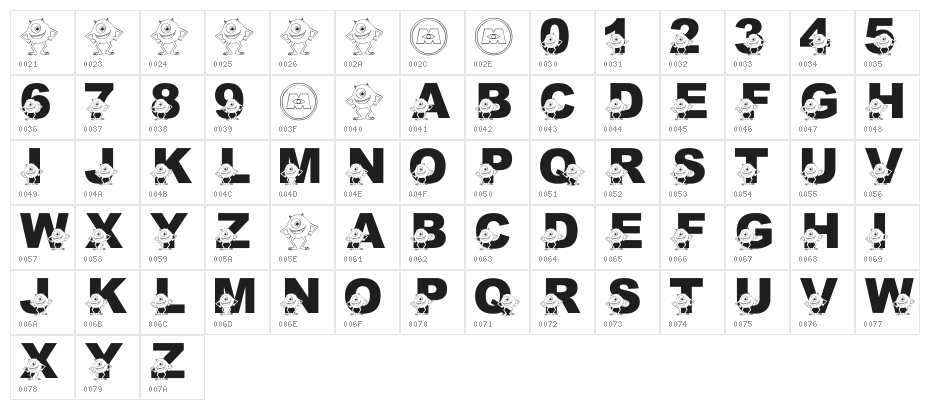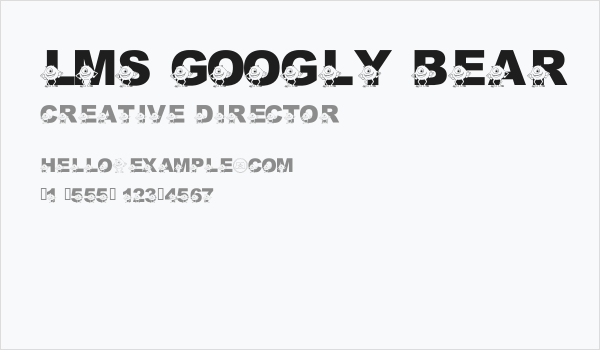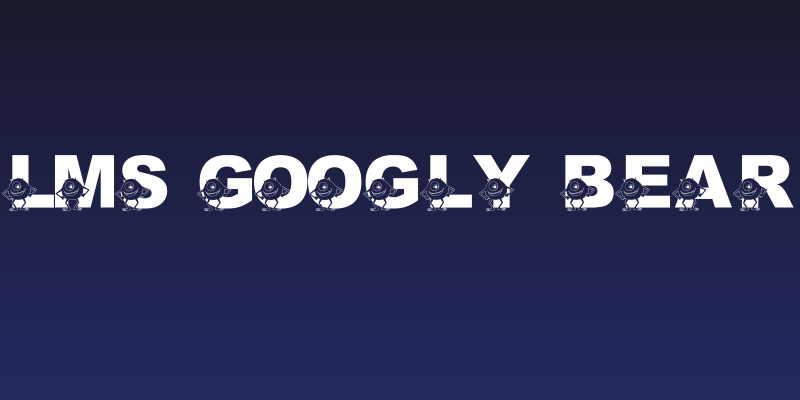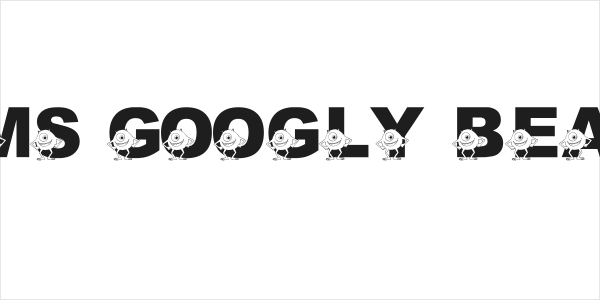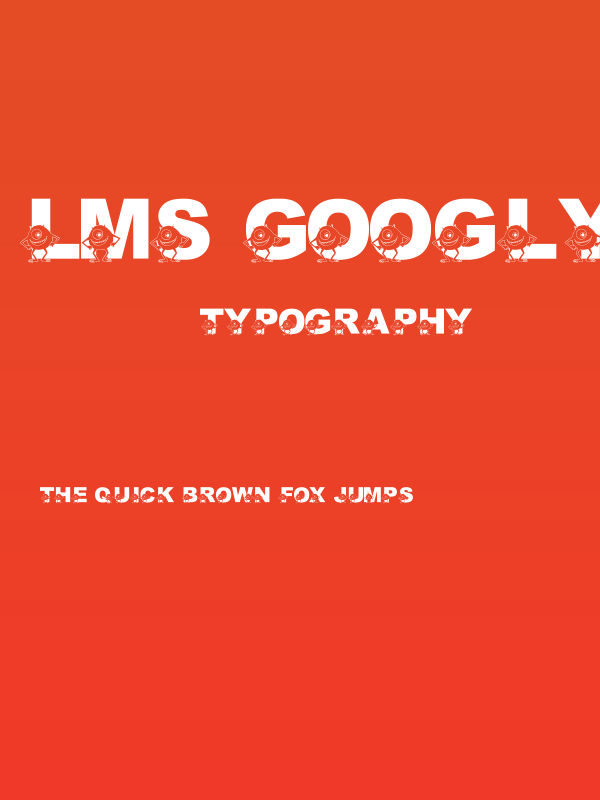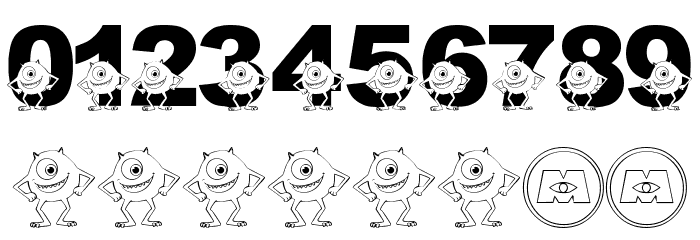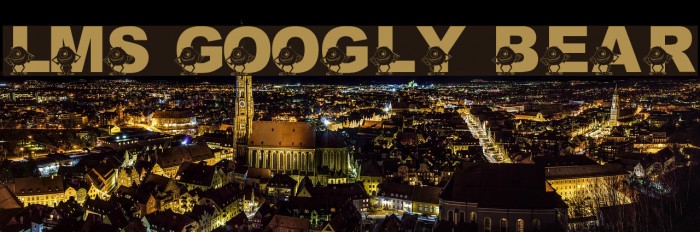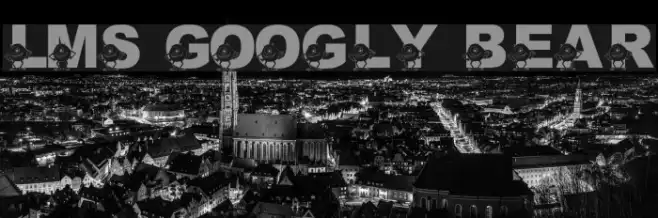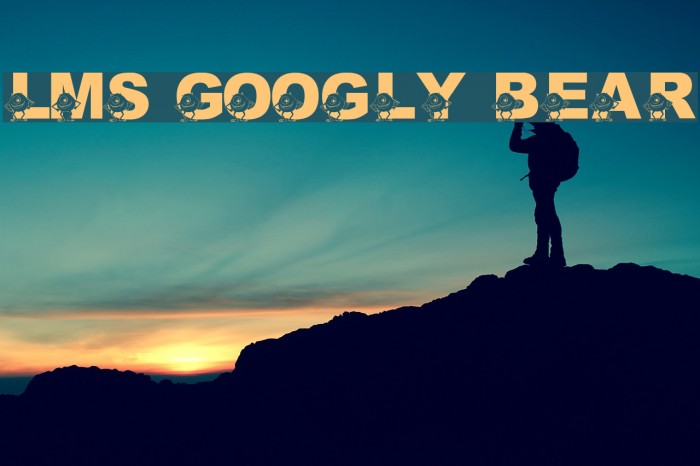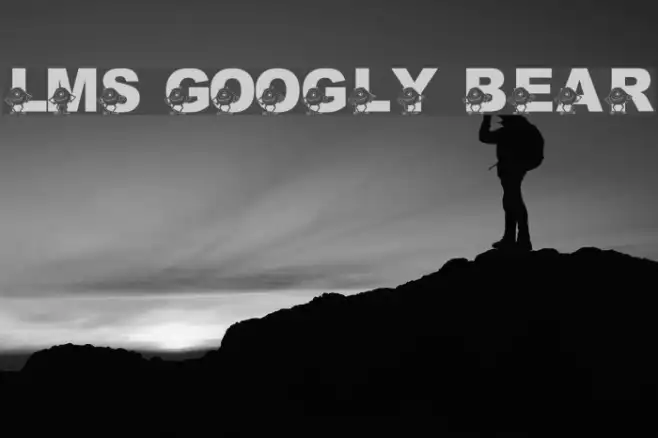
LMS Googly Bear Font
LMS Googly Bear Description
This playful and whimsical font features bold, uppercase and lowercase letters with a unique character embedded within each letterform. The design integrates a cartoon character, adding a fun and lively element to the text. The font is highly decorative, making it ideal for projects that require a touch of humor and creativity. Its bold weight and strong presence make it suitable for eye-catching designs, while the character integration provides a distinctive and memorable style.